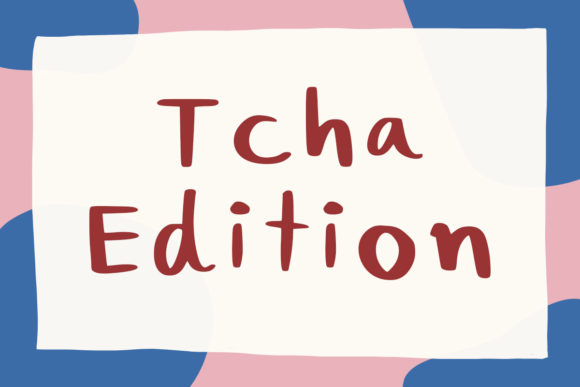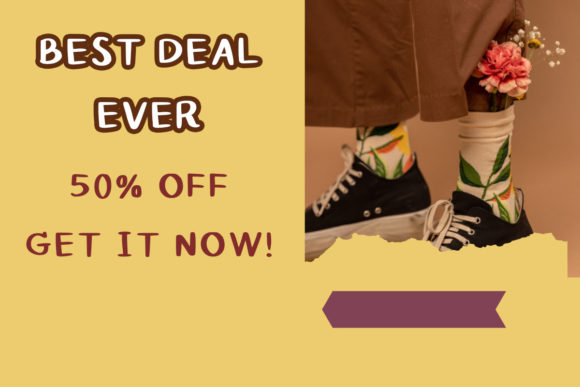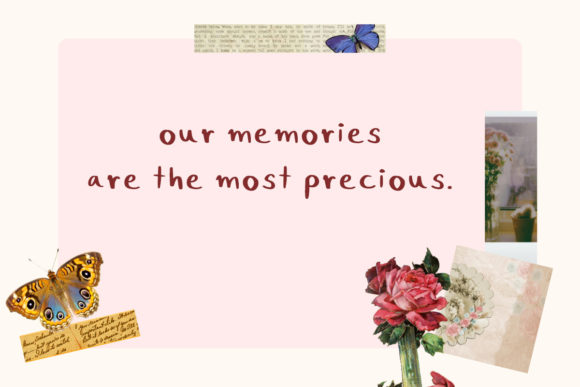
Tcha Edition Font
About Tcha Edition Font
Tcha Edition is a delightful and clean handwritten font that effortlessly captures the essence of cuteness and approachability. Designed with precision and care, this font offers a versatile solution for a wide range of creative projects. Its unique style makes it particularly well-suited for work that requires a touch of playfulness, readability, and a friendly demeanor.
The carefully crafted letterforms of Tcha Edition lend themselves to various applications, allowing you to explore endless possibilities. Its cute and clean design makes it an ideal choice for projects aimed at capturing the attention and interest of diverse audiences. Whether you’re creating eye-catching headlines, designing captivating logos, composing engaging blog posts, or crafting memorable social media content, Tcha Edition has the flexibility to cater to your creative needs.
Imagine using Tcha Edition to bring a sense of joy and whimsy to children’s books, adding a touch of charm to baby shower invitations, or infusing a dose of friendliness into your website’s design. This font’s adaptability knows no bounds, making it an invaluable asset for any designer or content creator.
The clean lines and effortless readability of Tcha Edition also make it suitable for projects where clarity and simplicity are paramount. Its smooth strokes and consistent flow ensure that your messages are communicated with clarity and finesse, ensuring that your audience can effortlessly engage with your content.
Furthermore, the PUA encoded feature of Tcha Edition allows you to access an array of glyphs and swashes with ease, granting you the creative freedom to personalize and embellish your designs even further.
In summary, Tcha Edition is more than just a font; it’s a creative companion that empowers you to explore new horizons. Let its cute and clean aesthetic breathe life into your projects, and embark on a journey where the possibilities are truly limitless.